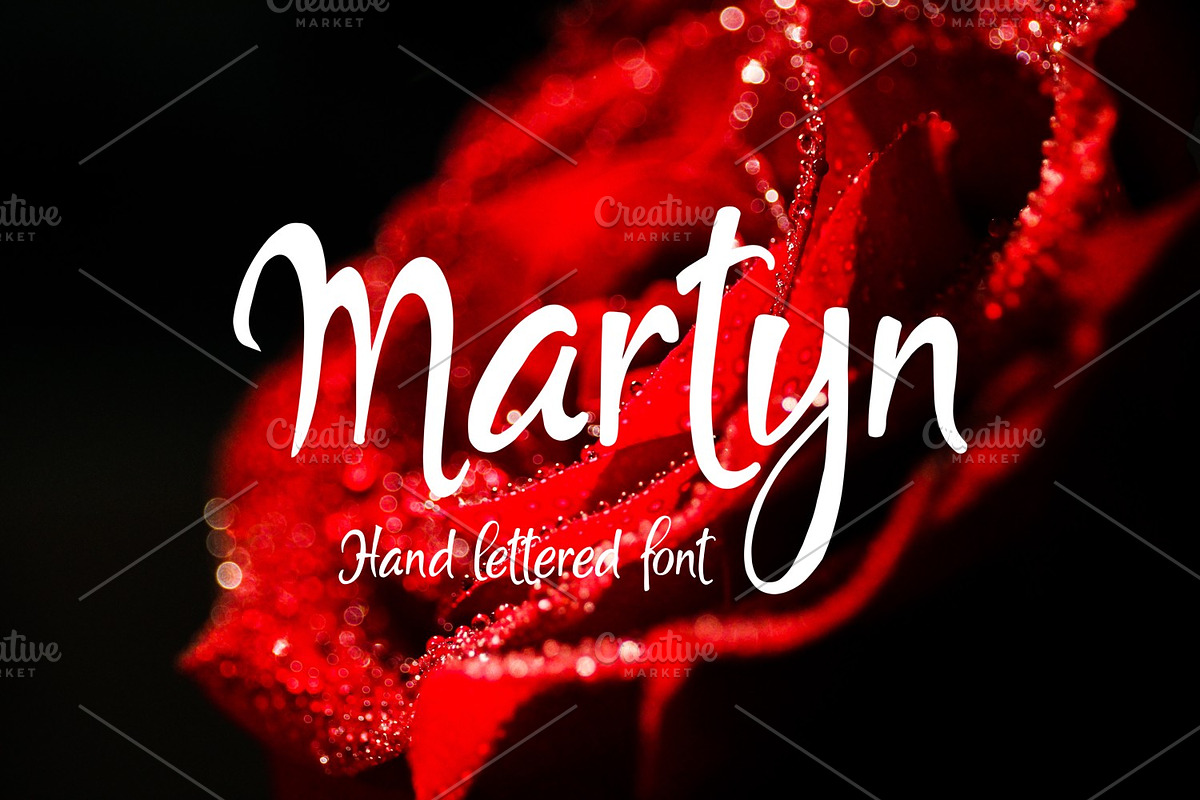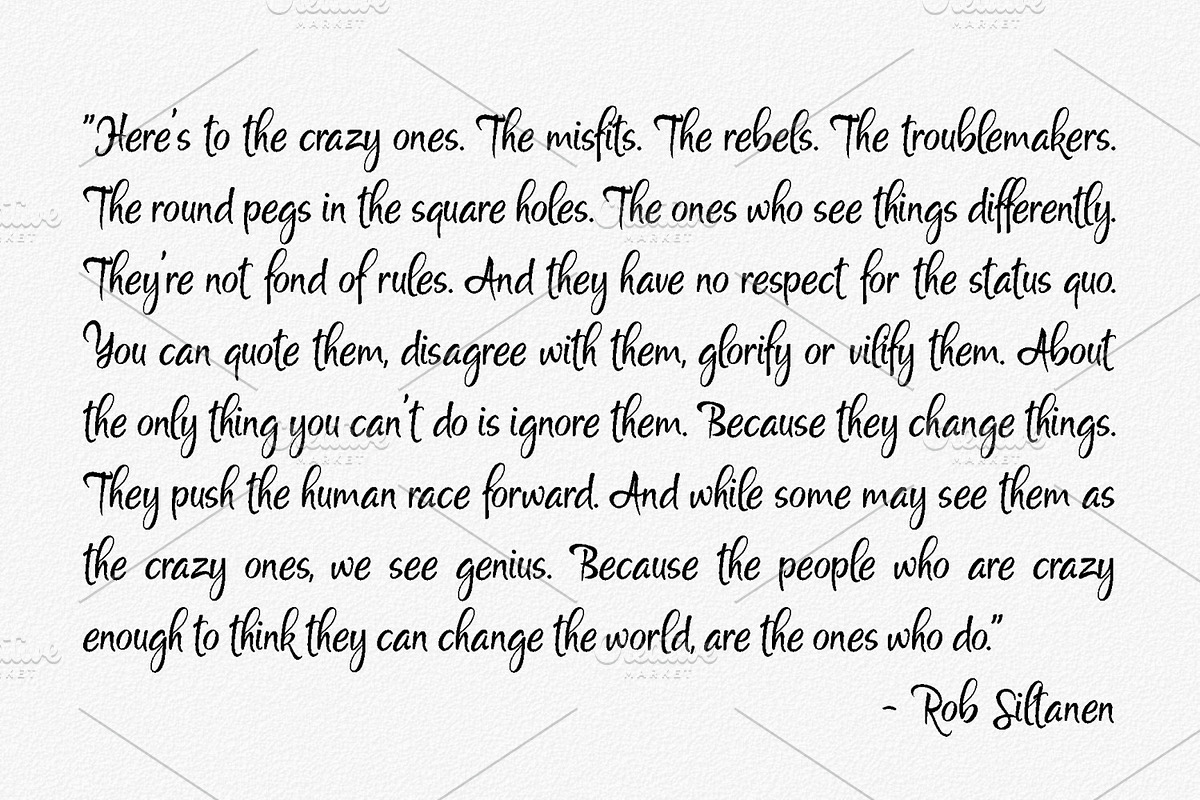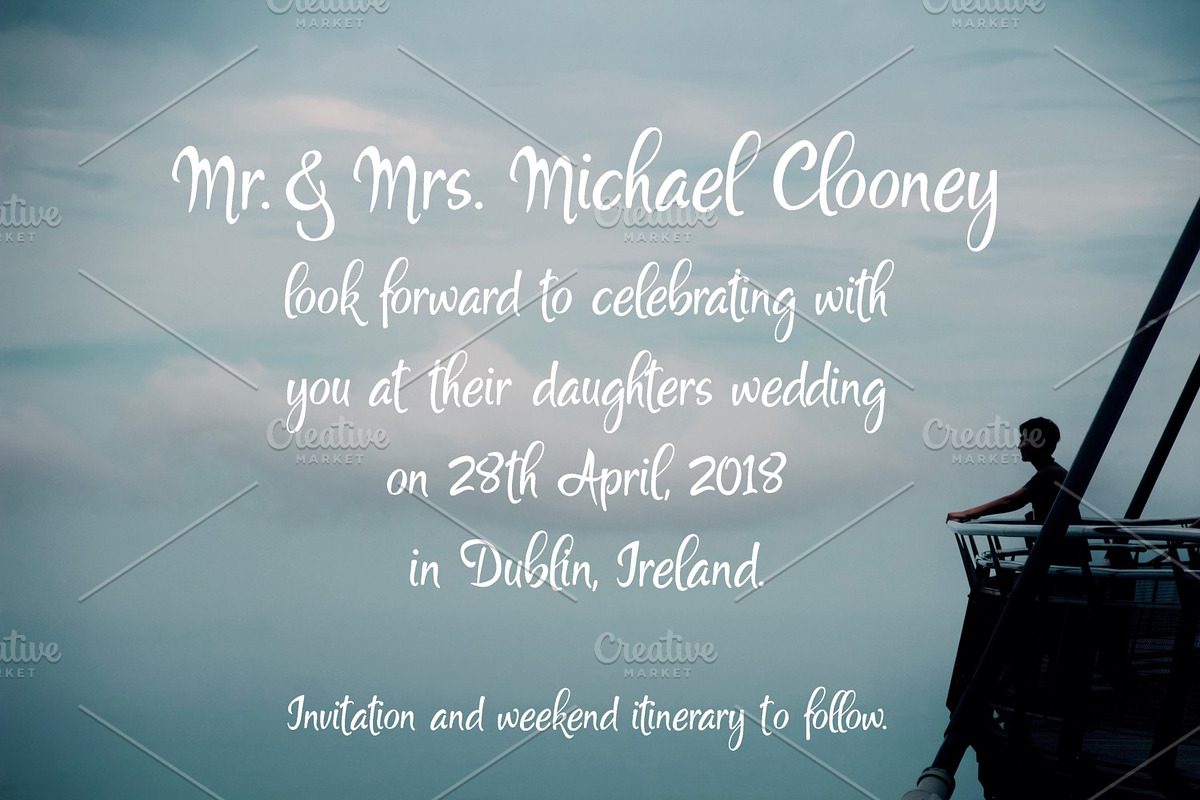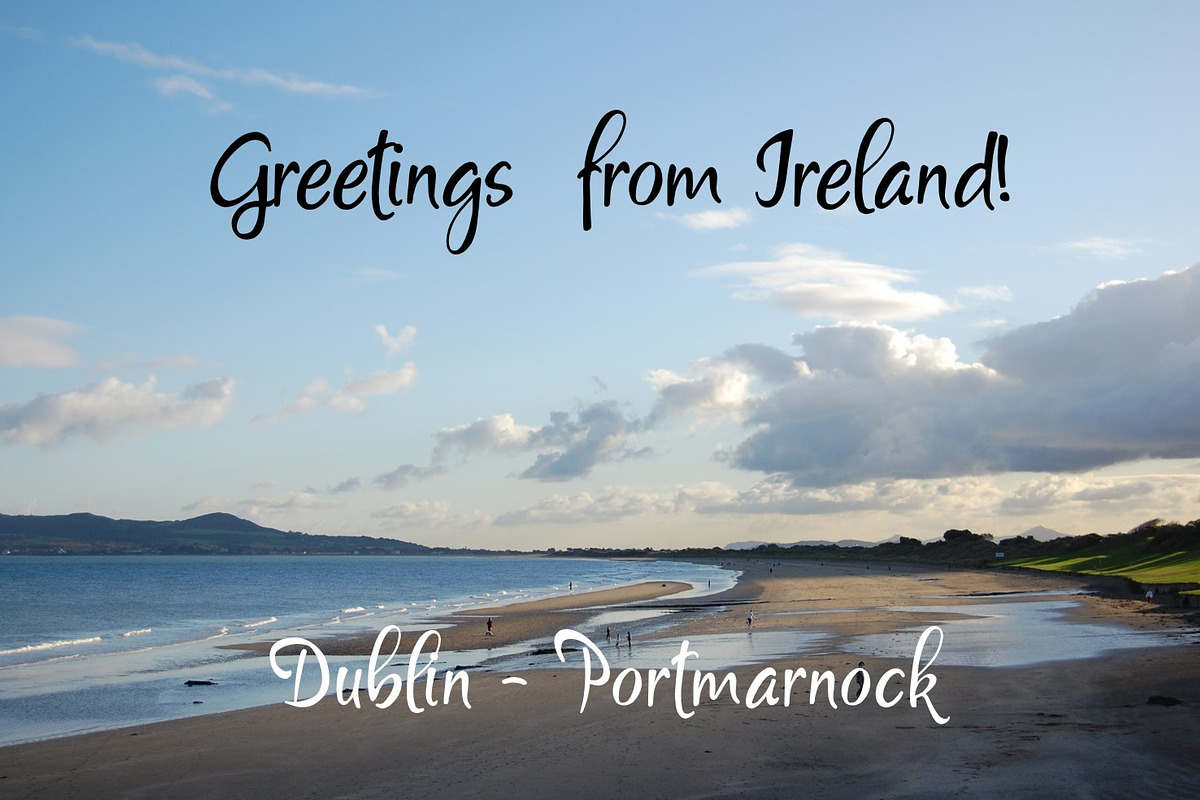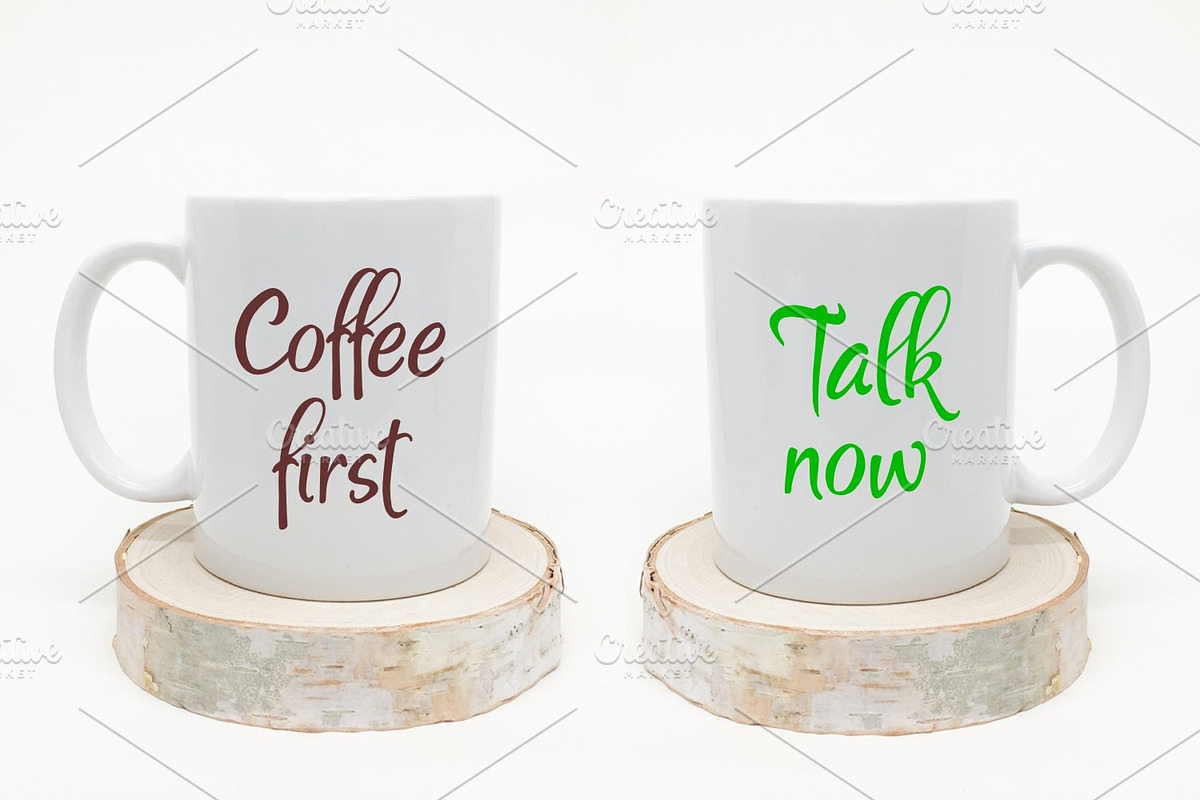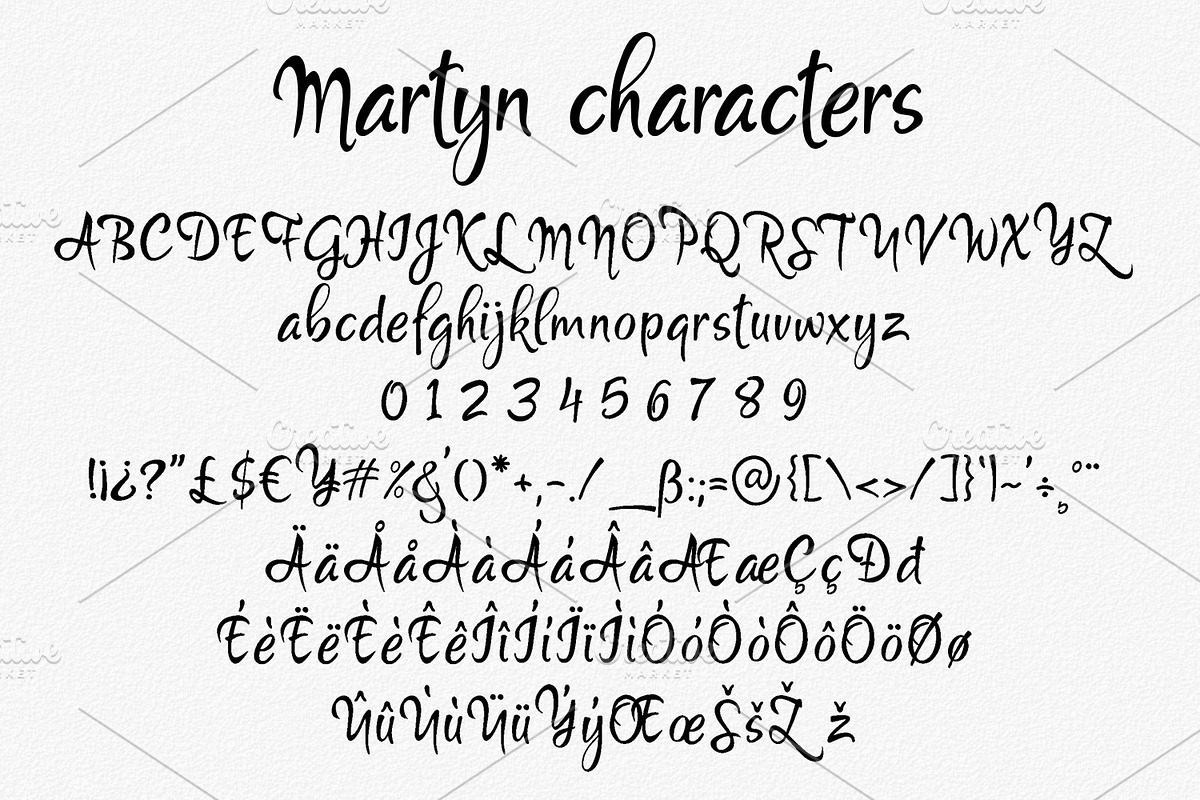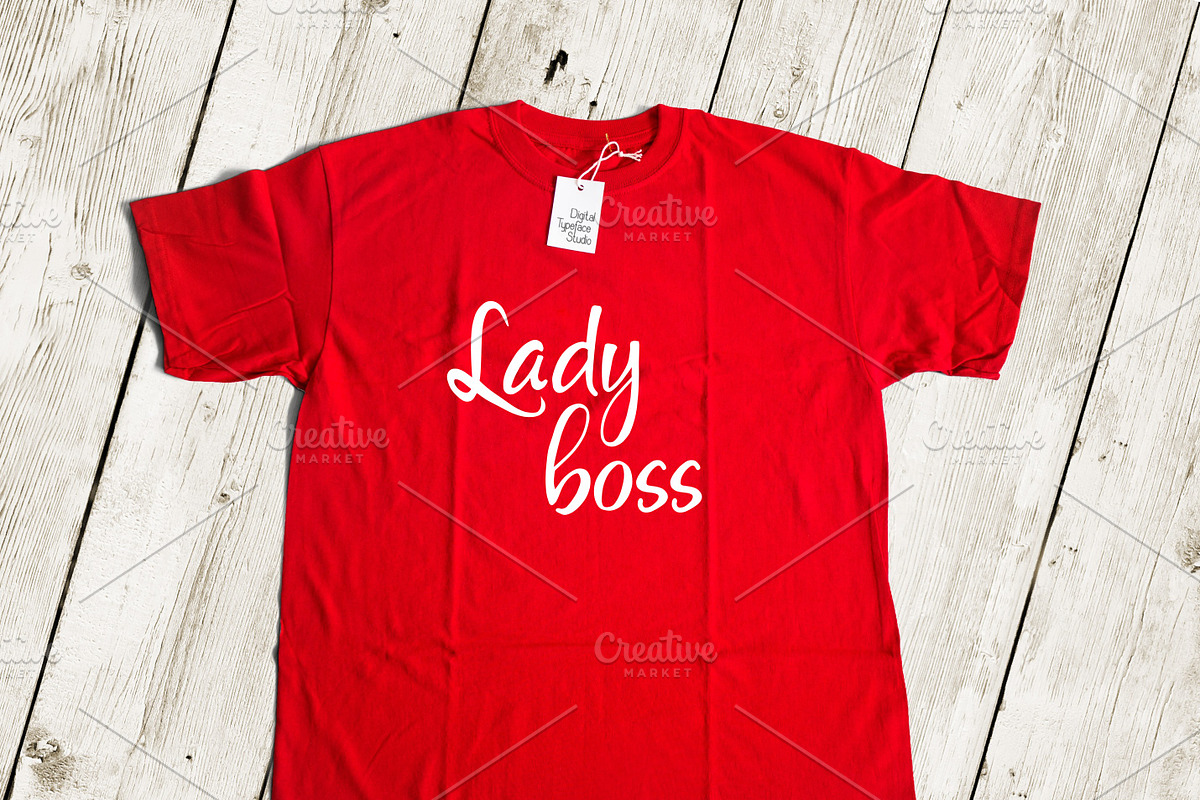
Martyn
Introducing Martyn, a hand lettered typeface. Perfect for invitations and other stationeries.
- Includes a range of multilingual characters.
Martyn by Digital Typeface Studio fits naturally into Branding, posters, packaging, typography.